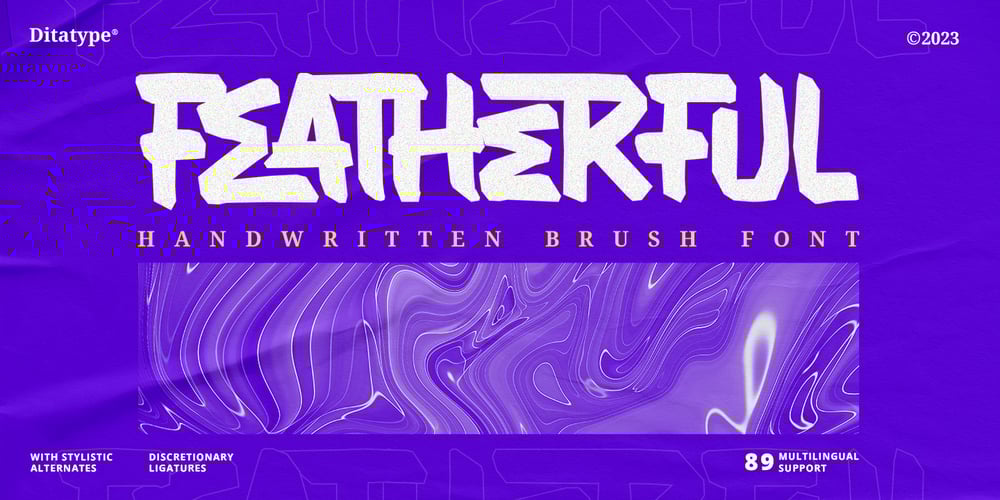
Featherful
Featherful font
Featherful Font Family was designed by Donis Miftahudin and published by Ditatype. Featherful contains 1 styles and family package options. Introducing Featherful, a handwritten brush font that embraces the bold and vibrant strokes of a paintbrush. With Featherful, you have a handwritten brush font that speaks the language of artistry.The characters in Featherful boast generous proportions, ensuring a visually striking impact in any design. The thick weight enhances the font’s presence, making it suitable for various creative applications. What sets Featherful apart is its rounded letter shapes, creating a friendly and approachable vibe. The details within each letter mimic the expressive strokes of a paintbrush, adding an authentic and artistic touch. Enjoy the features here.Features: Ligatures Stylistic Sets Multilingual Supports PUA Encoded Numerals and Punctuations Featherful fits in headlines, logos, posters, flyers, branding materials, greeting cards, print media, editorial layouts, and many more designs. Find out more ways to use this font by taking a look at the font preview.Thanks for purchasing our fonts. Hopefully, you have a great time using our font. Feel free to contact us anytime for further information or when you have trouble with the font. Thanks a lot and happy designing.